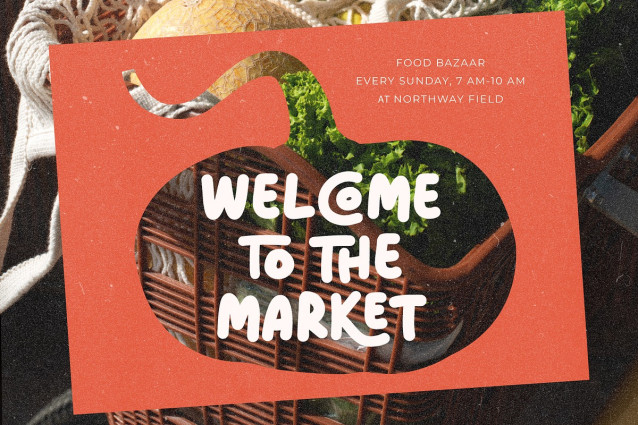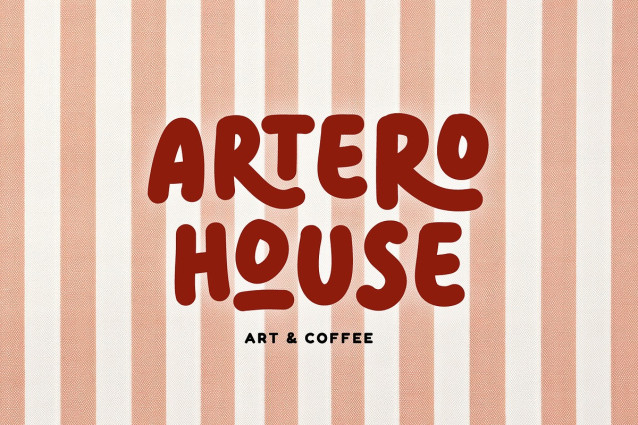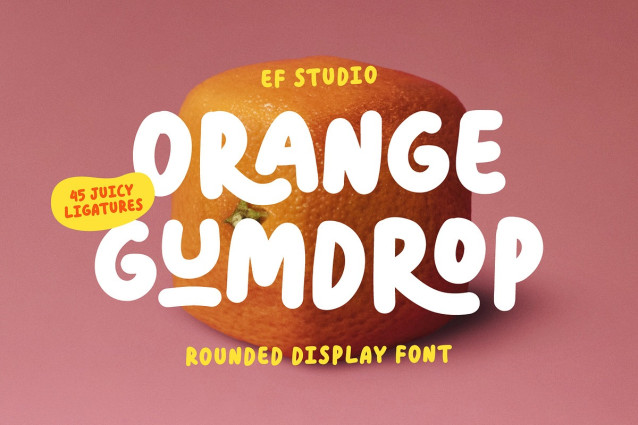
Orange Gumdrop Font
Orange Gumdrop Font is a playful display font defined by soft curves, rounded terminals, and intentionally uneven details. Its shapes feel warm and expressive, with a hand-touched quality that brings a sense of ease and familiarity. Every letter is built to feel friendly, bold, and approachable, making the font naturally eye-catching while staying comfortable to read at larger sizes. It works especially well for food, lifestyle, and playful branding, but remains flexible enough for posters, packaging, editorial highlights, and social media visuals. The tone is casual yet intentional, adding personality without overwhelming the message. This font is meant to feel human, cheerful, and confident. Perfect for projects that want to feel inviting, expressive, and a little bit fun.